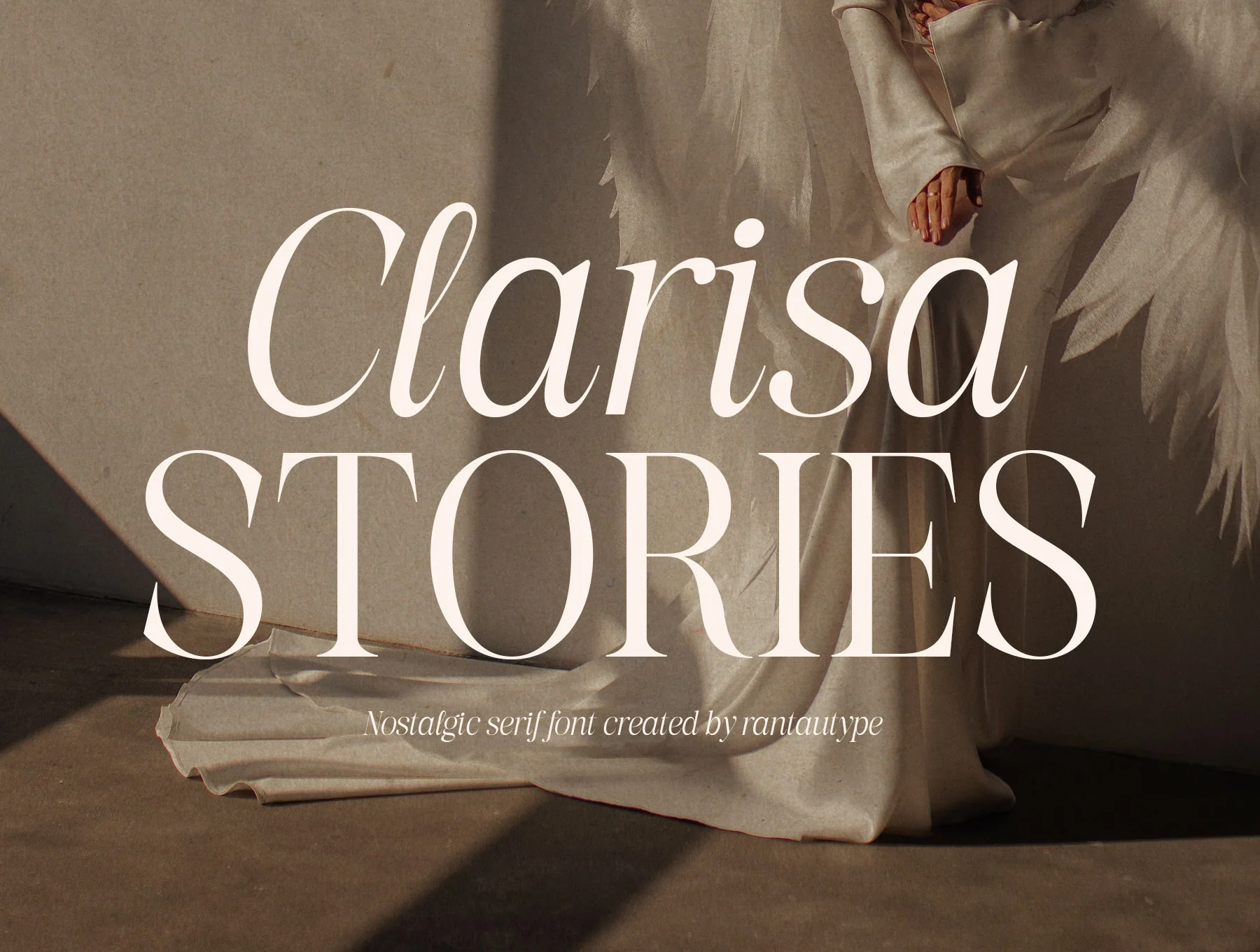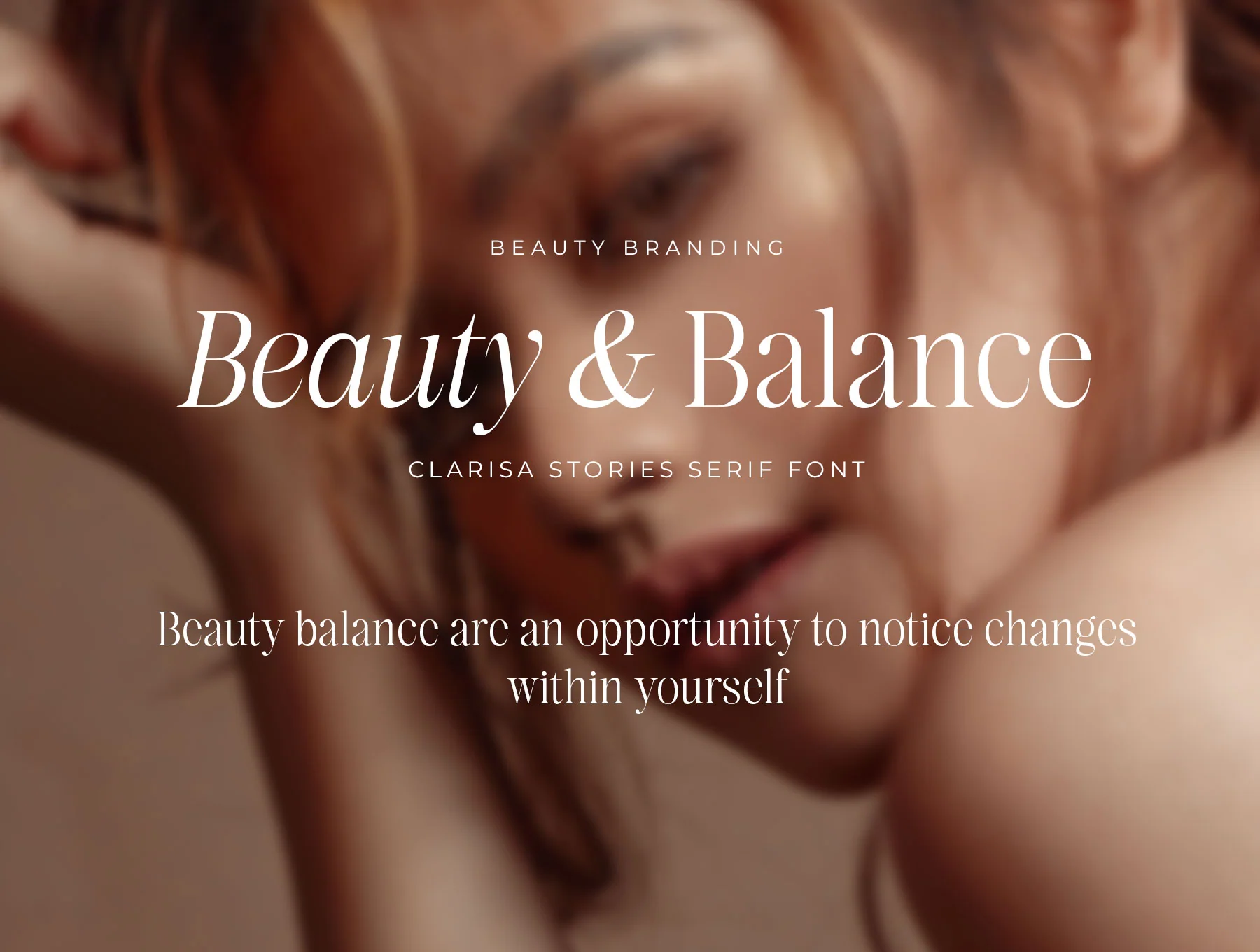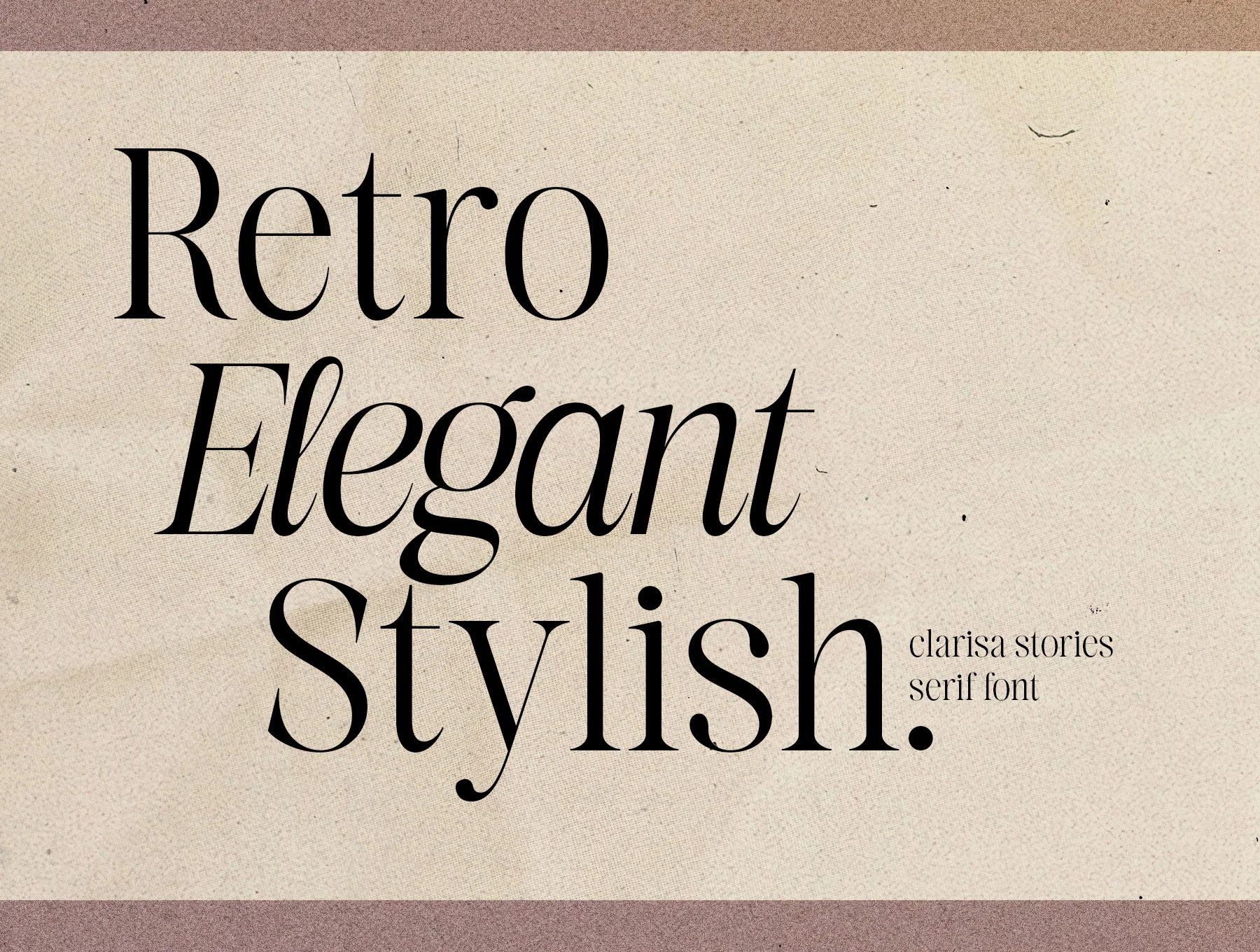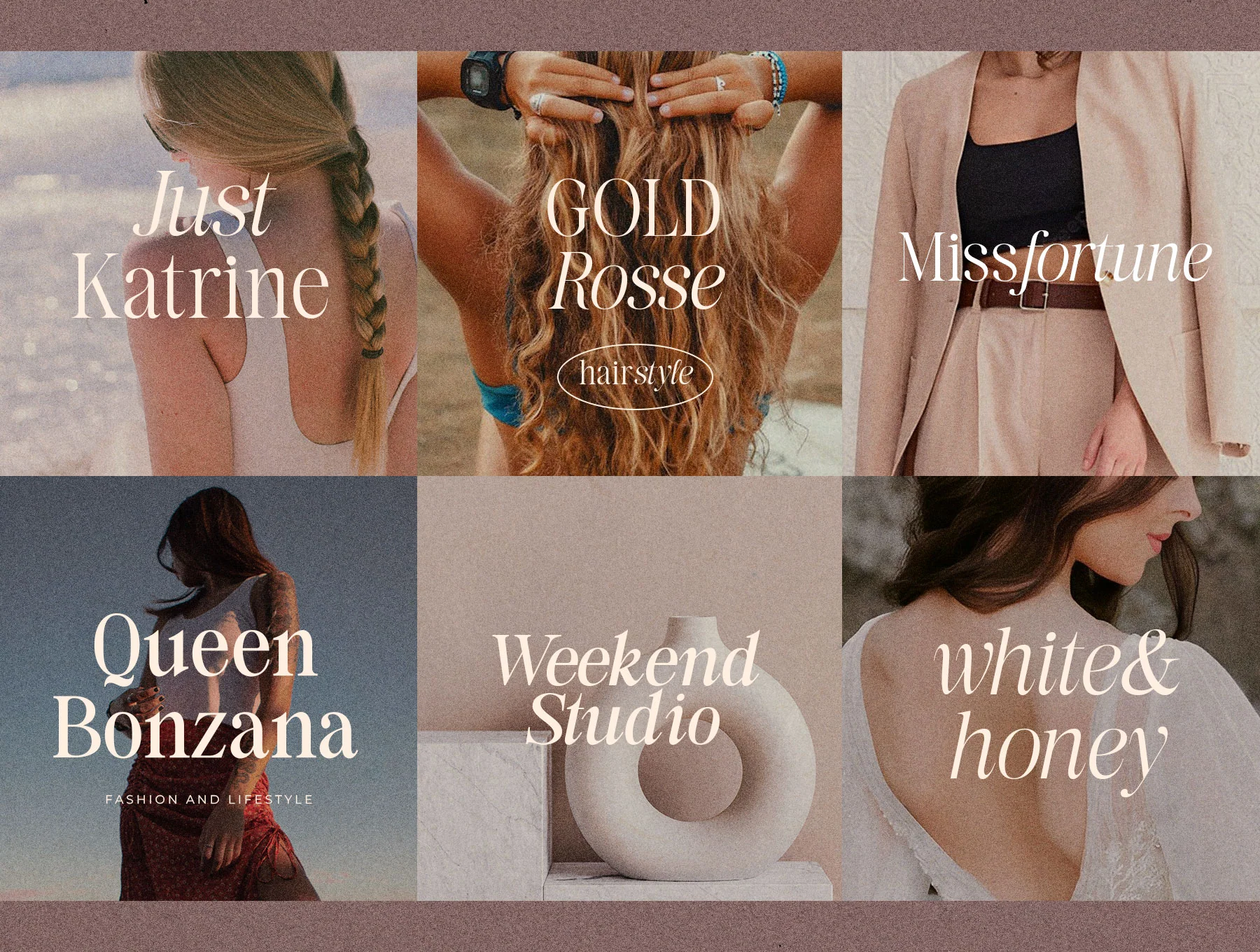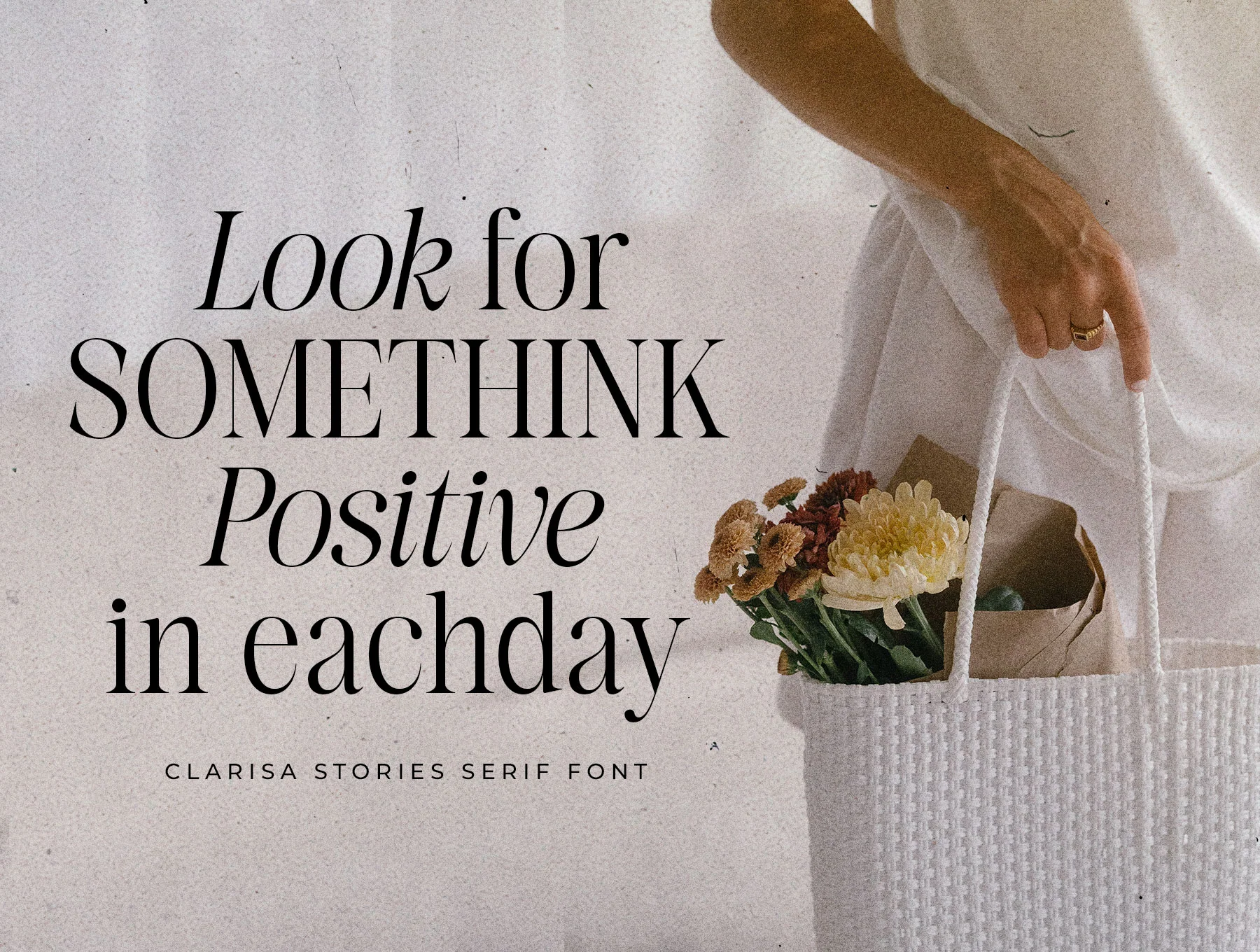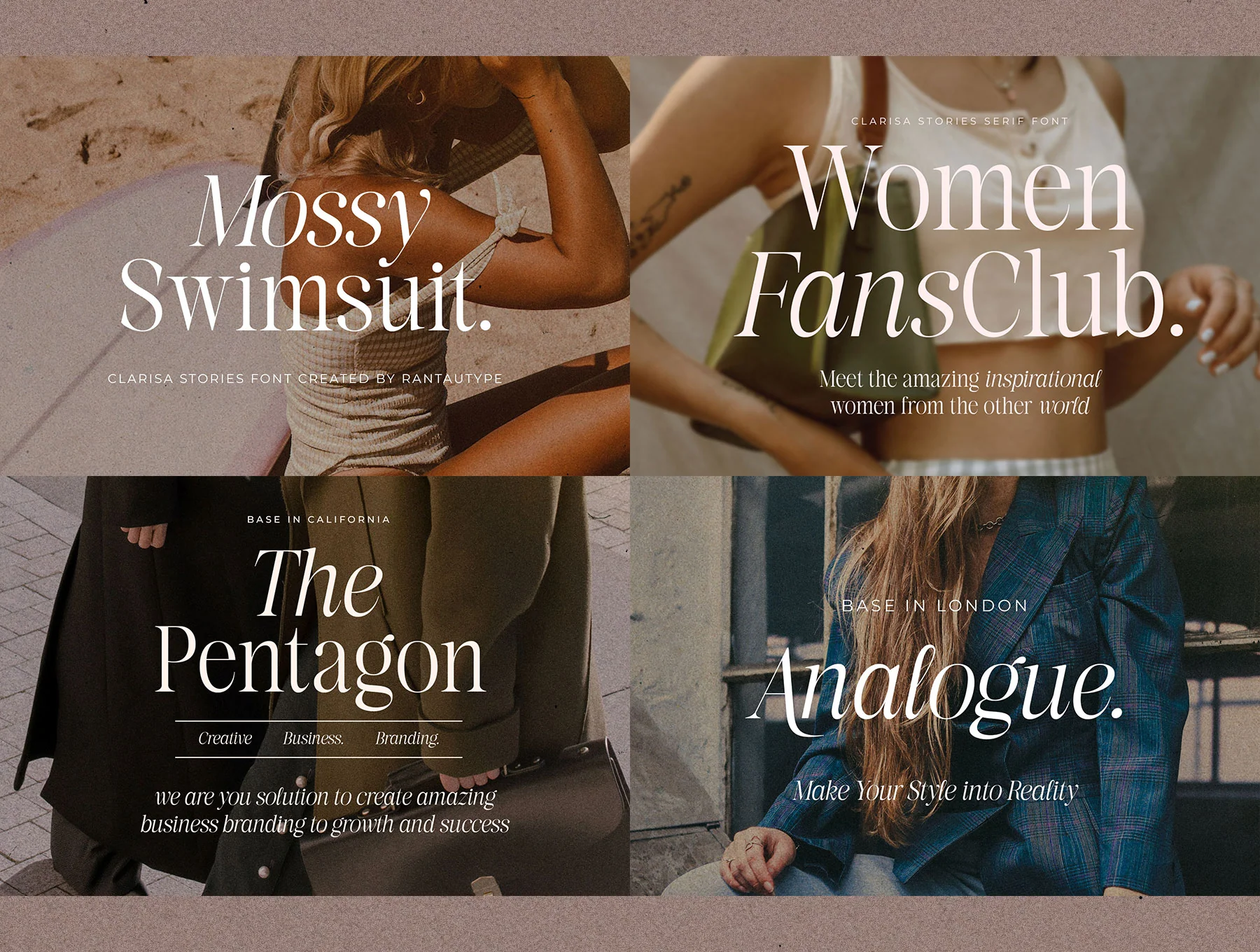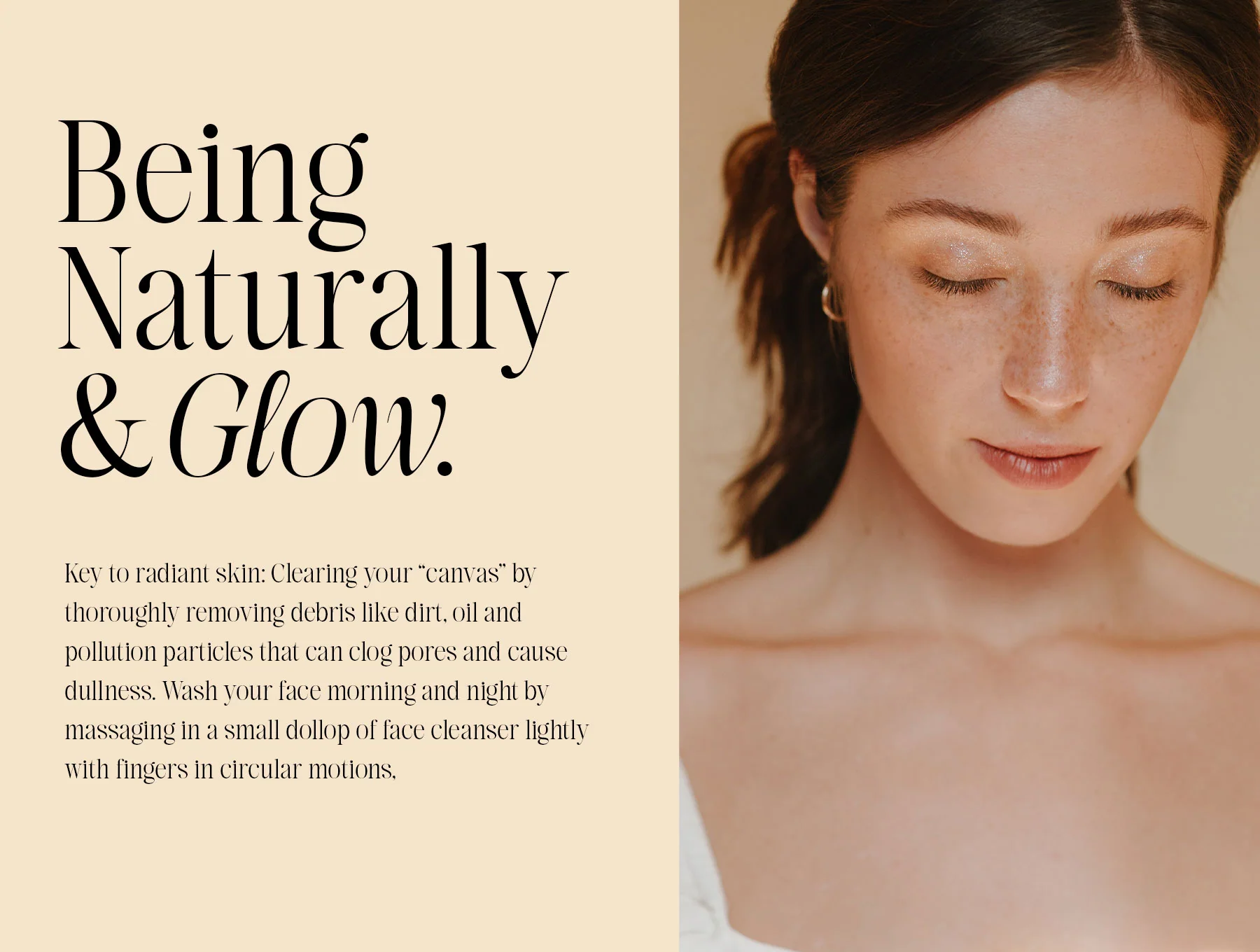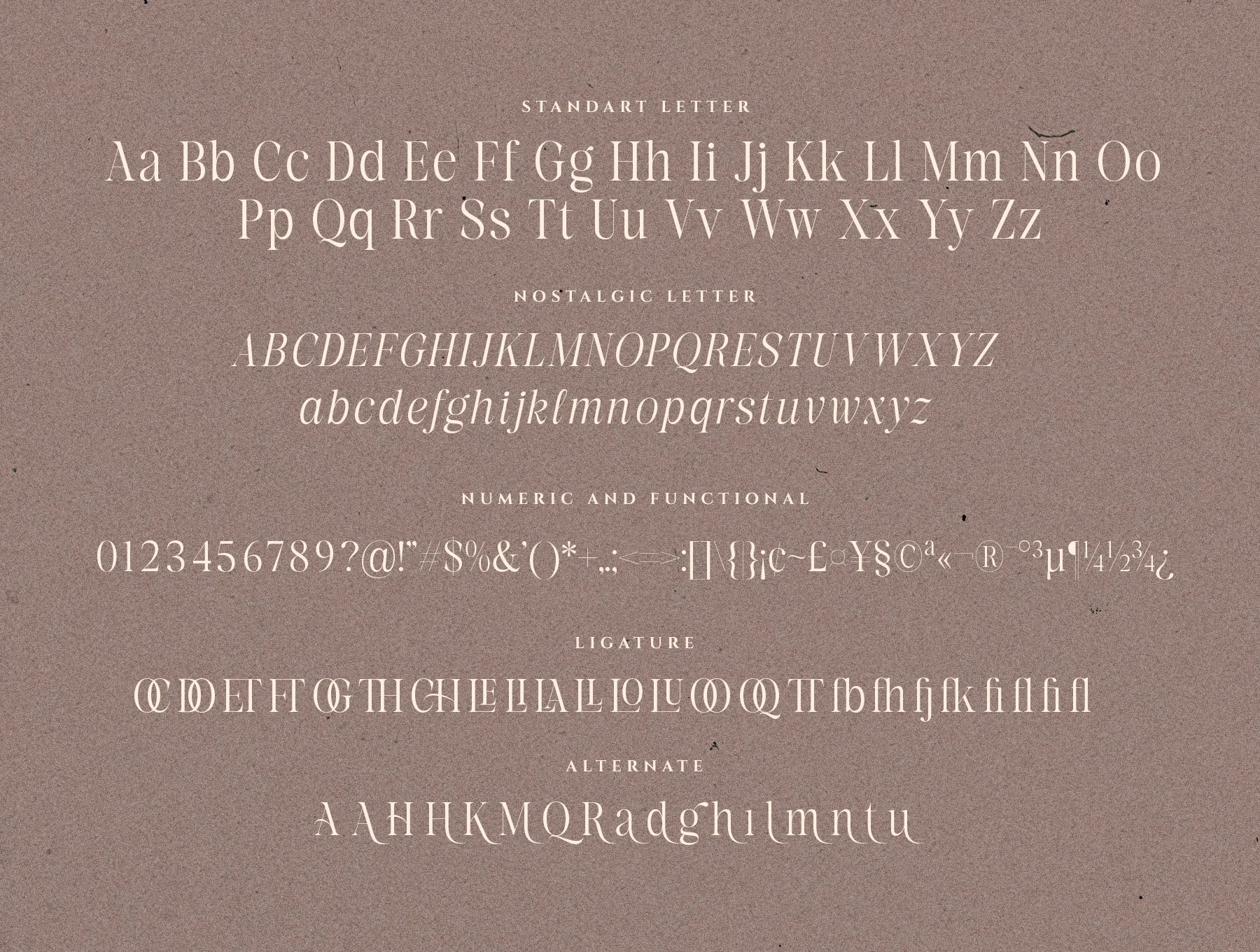
Clarisa Stories Modern Serif Font
Clarisa Stories Contemporary Serif Typeface
Basic uppercase and lowercase alphabet glyphs
Numerals plus functional characters
Ligatures with alternate character options
Clarisa Stories is an elegant 1980s-inspired display serif with matching italics and two contrast options for refined, nostalgic layouts. Ideal for logos, covers, branding, invites, weddings, magazines, social posts, ads, packaging, labels, quotes, photos and events. Includes OTF, TTF, WOFF, capitals/lowercase, numerals, ligatures, alternates and wide language support for PC/Mac, Adobe apps and Word.